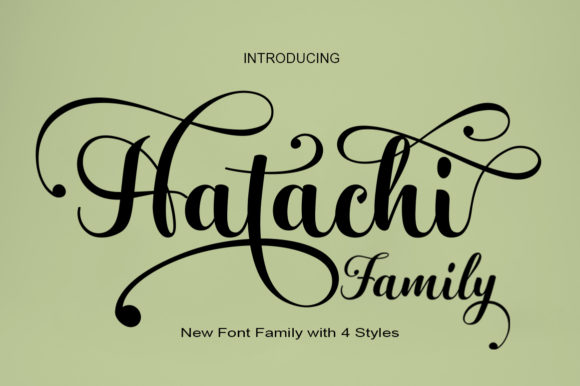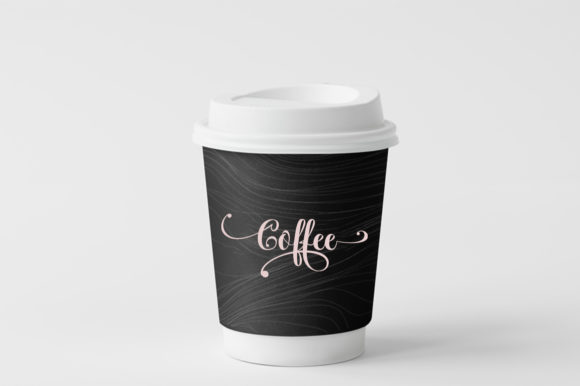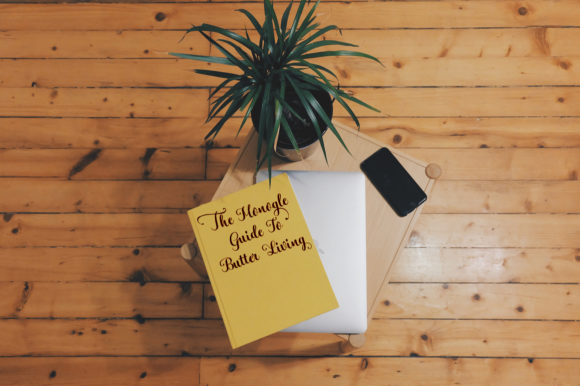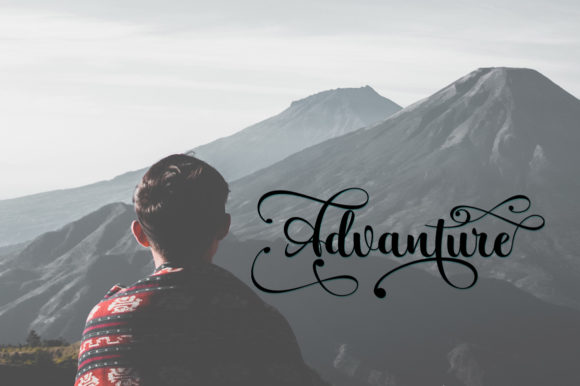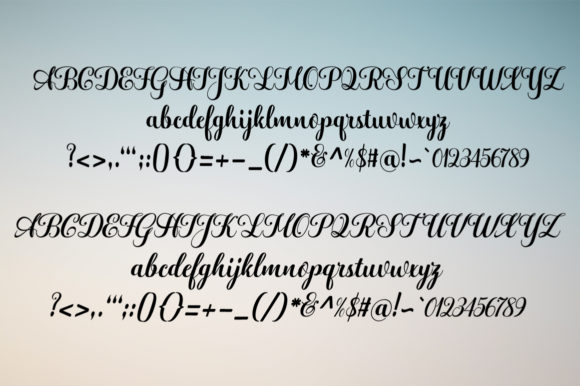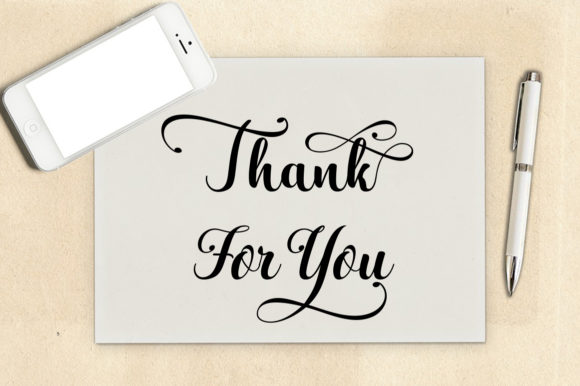
Hatachi Family Font
About Hatachi Family Font
The Hatachi is an elegant script family. It has an amazing handwritten style and includes beautiful calligraphy. It’s decorative characters and dancing linage give it a playful feel while keeping its elegance.
It can be used for invitations, greeting cards, branding materials, business cards, quotes, posters, and much more!